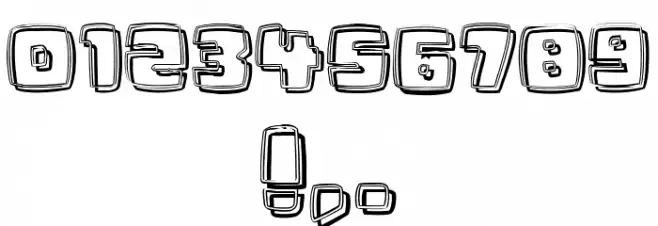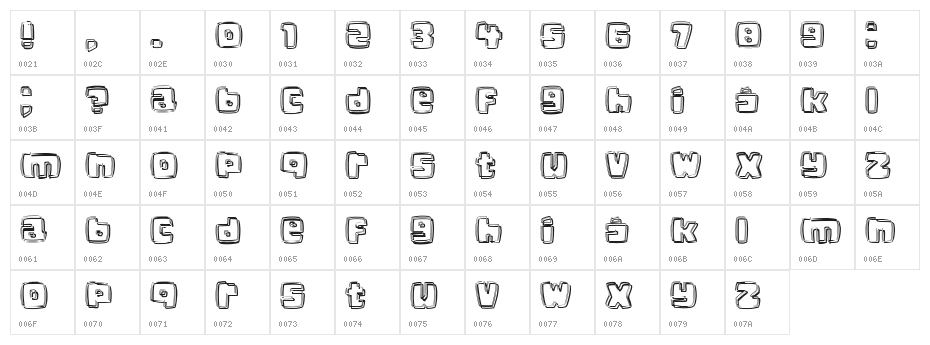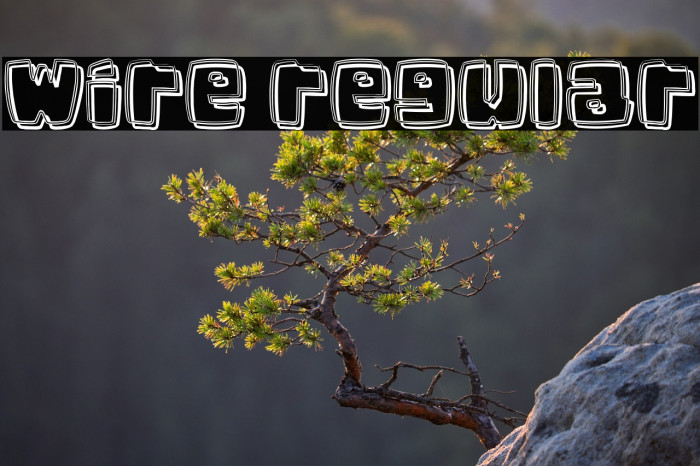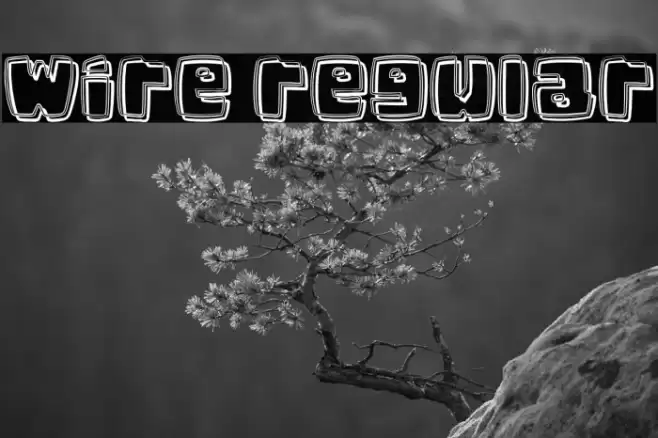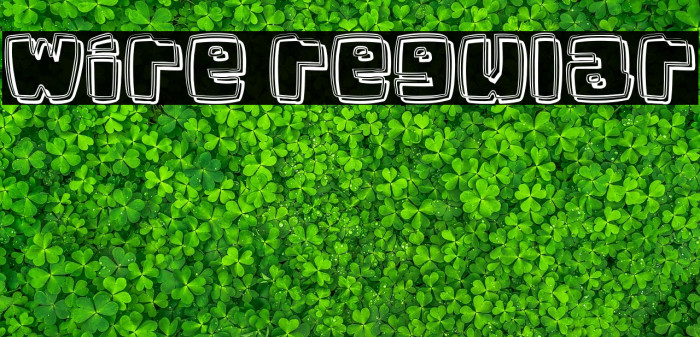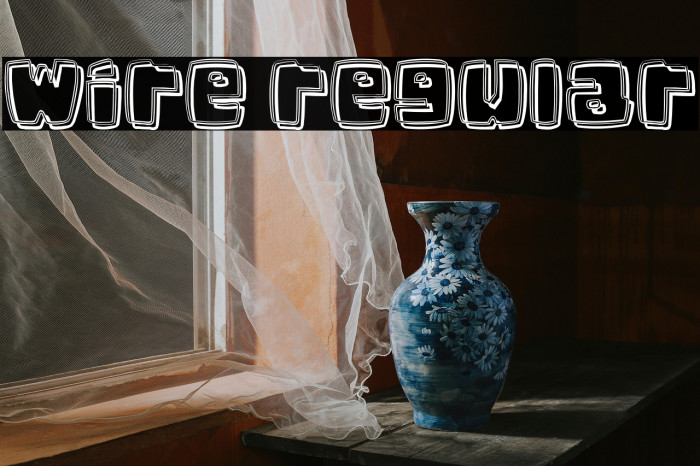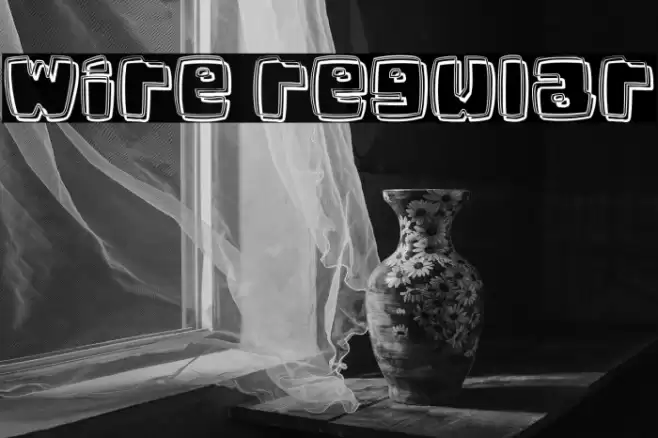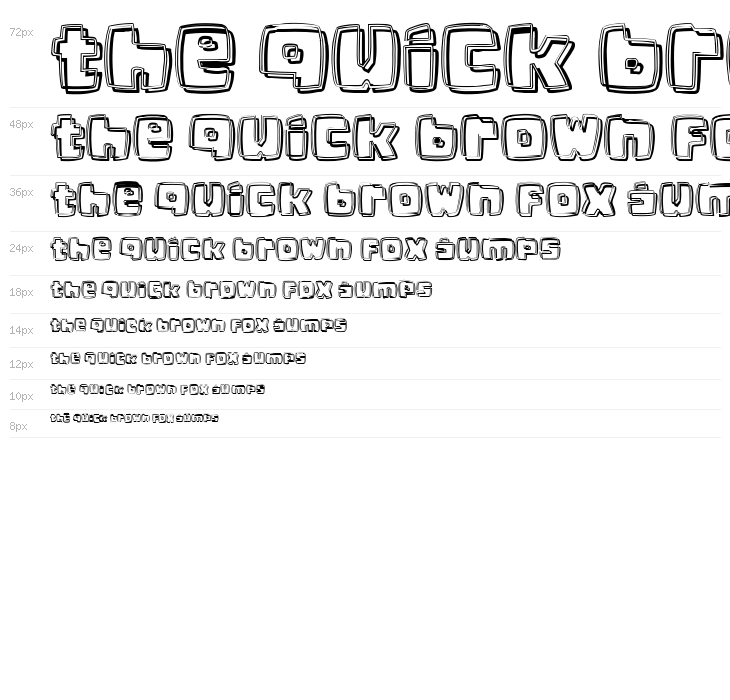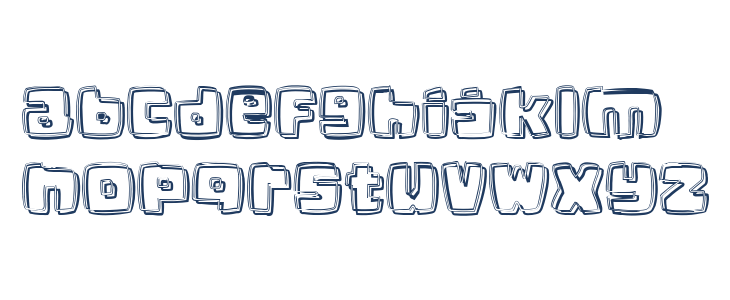
Wire Regular Font
Wire Regular Description
This font features a bold, playful design with a three-dimensional effect that gives each character a unique, outlined appearance. The letters are rounded and have a cartoonish, bubble-like quality, making them stand out with a sense of fun and creativity. The uppercase and lowercase letters maintain a consistent style, with the numbers and special characters following suit. The font's design is highly decorative, making it ideal for projects that require a lively and engaging visual element. The stroke contrast is low, with a uniform thickness throughout each character, enhancing its bold and impactful look.
| Overall Style | Playful, Decorative |
| Proposed Projects | Ideal for children's books, comic strips, playful branding, and creative posters. |